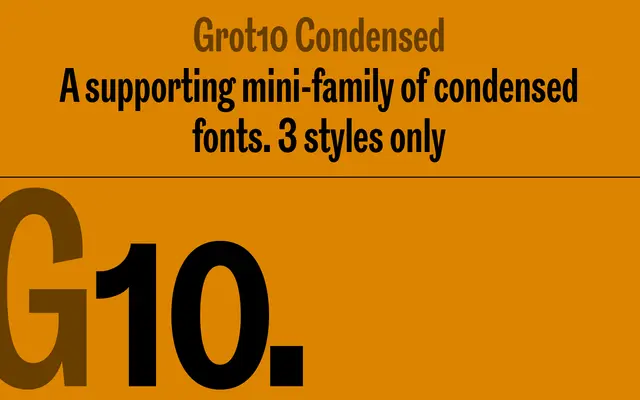
Grot10 Condensed
A2-Type · 2013
A condensed mini-family drawn from A2-Type's revival of Stephenson Blake's Grotesque No.10, originally commissioned for the RIBA Journal in 2013.
Three weights of condensed grotesque — Light, Medium and Bold — derived from the Grot10 family, itself a contemporary reworking of Stephenson Blake's Sheffield-made Grotesque No.10. The cuts were first designed for the Royal Institute of British Architects' members magazine, Riba J, giving them a grounding in editorial use at tight column widths. The wider Grot10 family has since grown to include Semibold, Extrabold and Black, but the Condensed remains a compact standalone sub-family.
Directly derived from Stephenson Blake's Grotesque No.10, a classic British grotesque series; the condensed cuts follow the same upright, workhorse grotesque tradition.